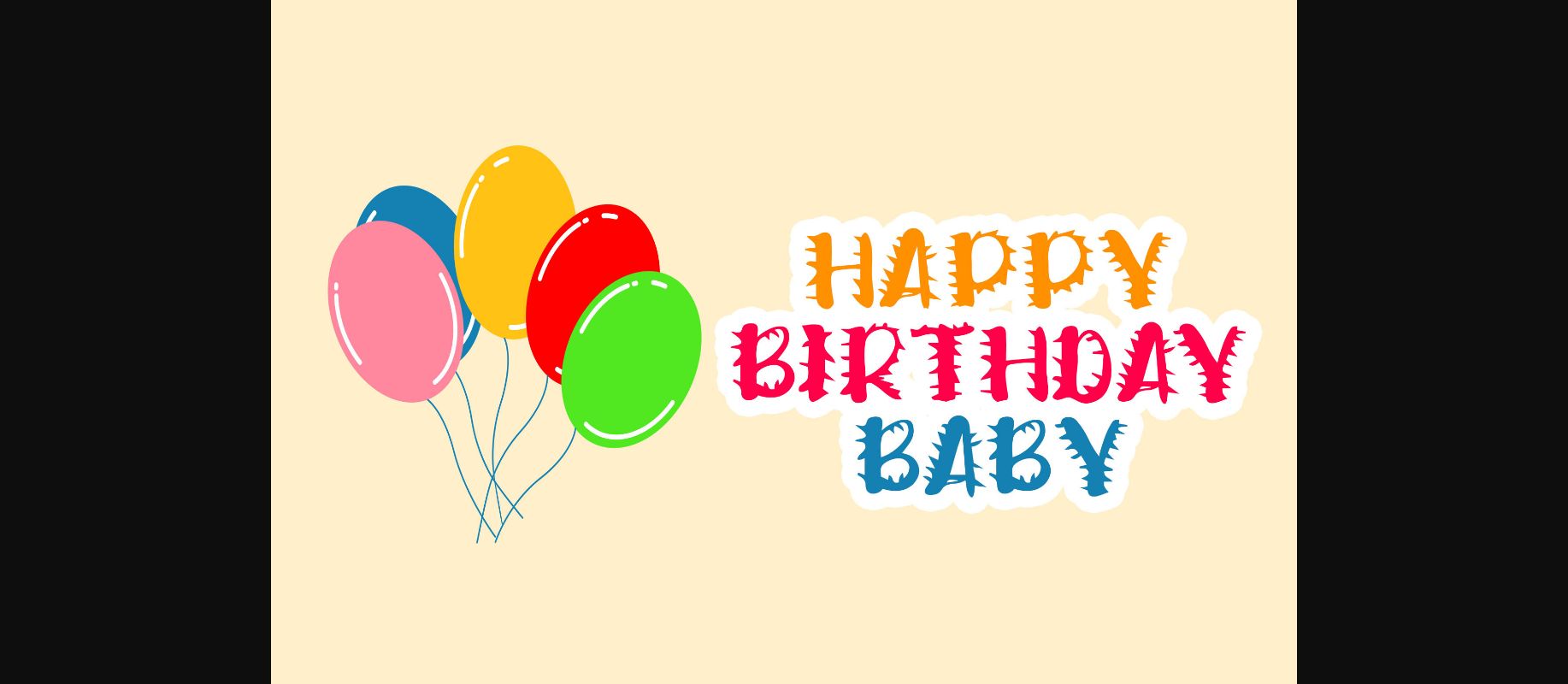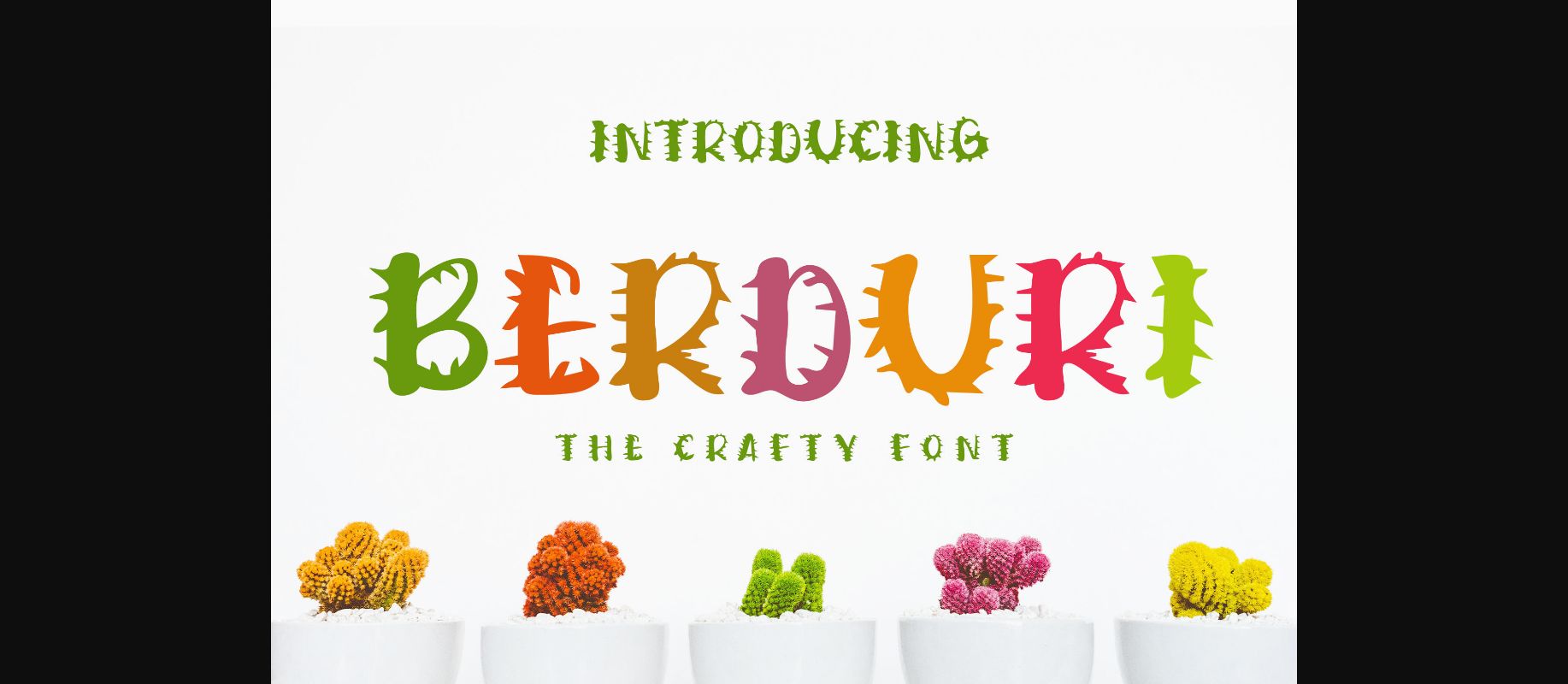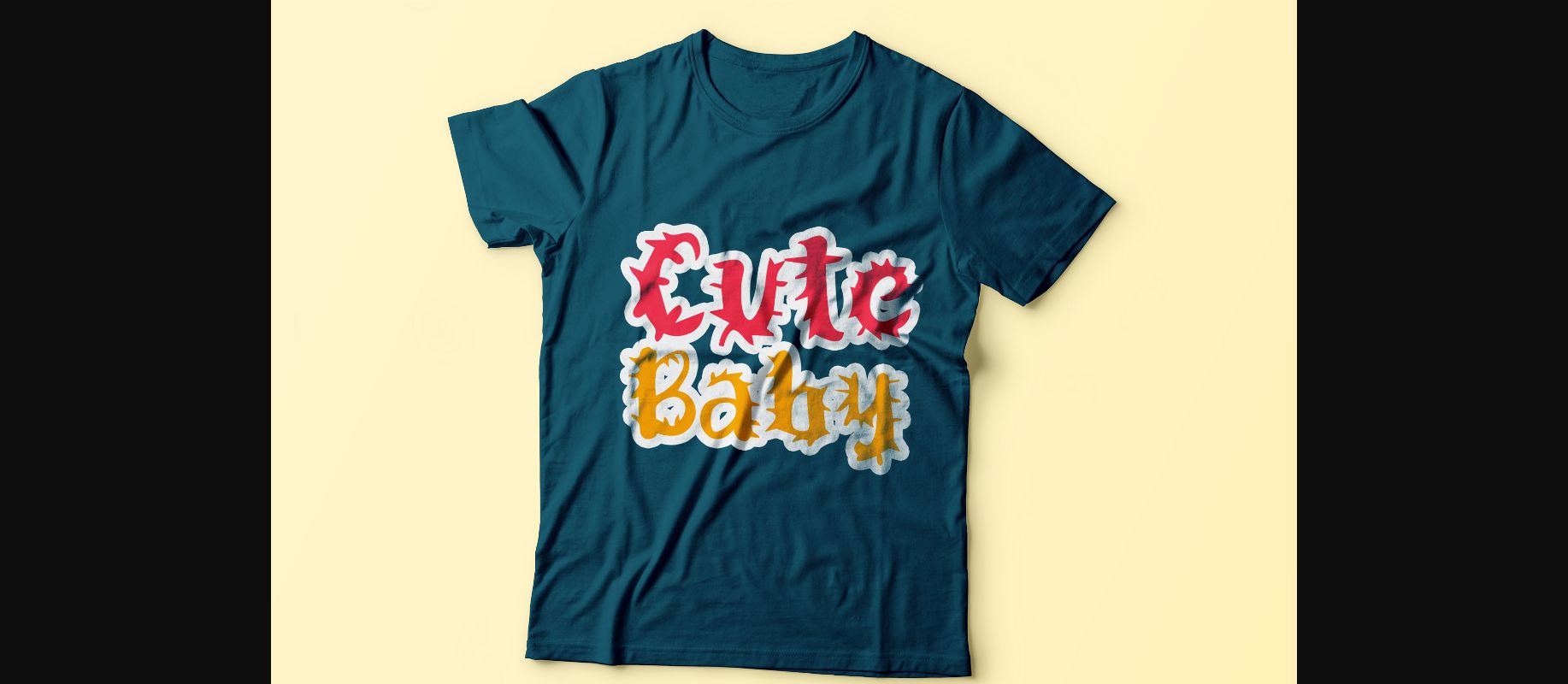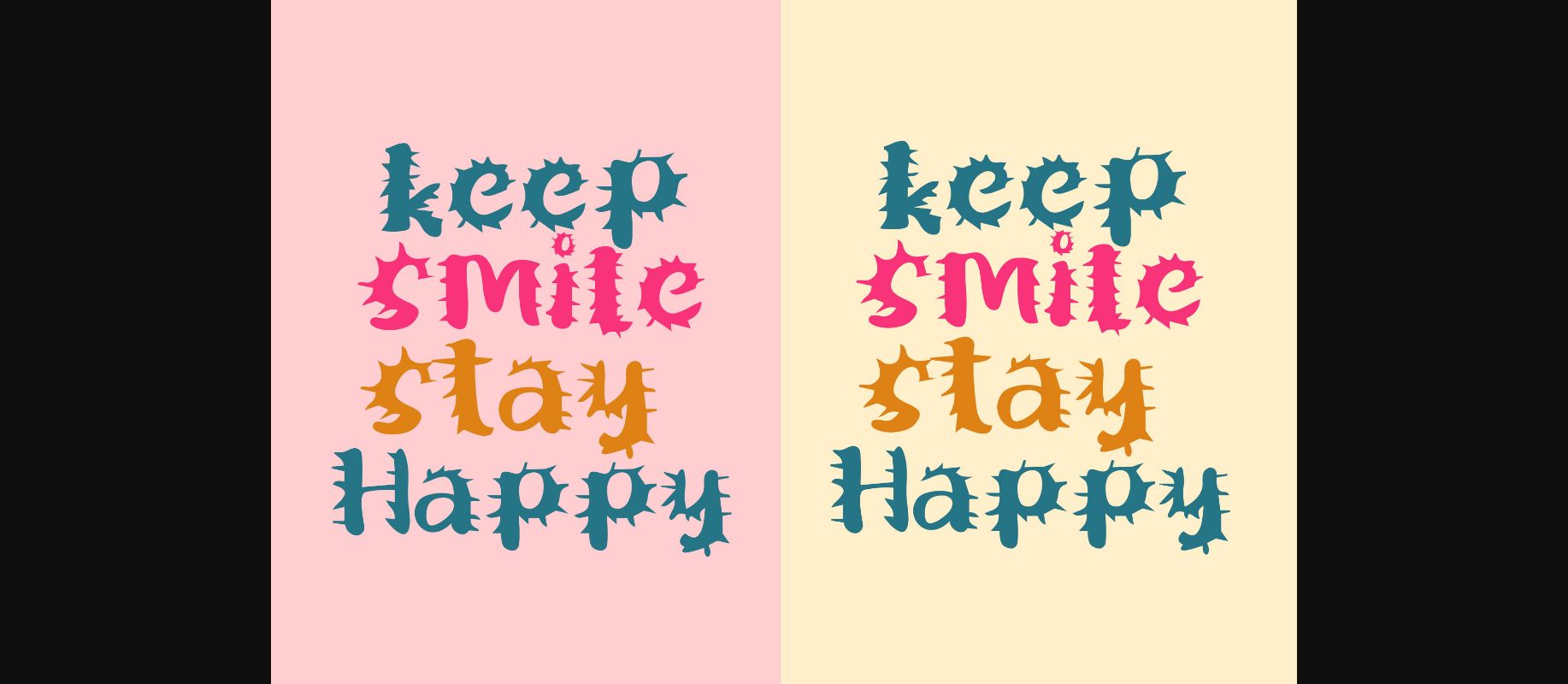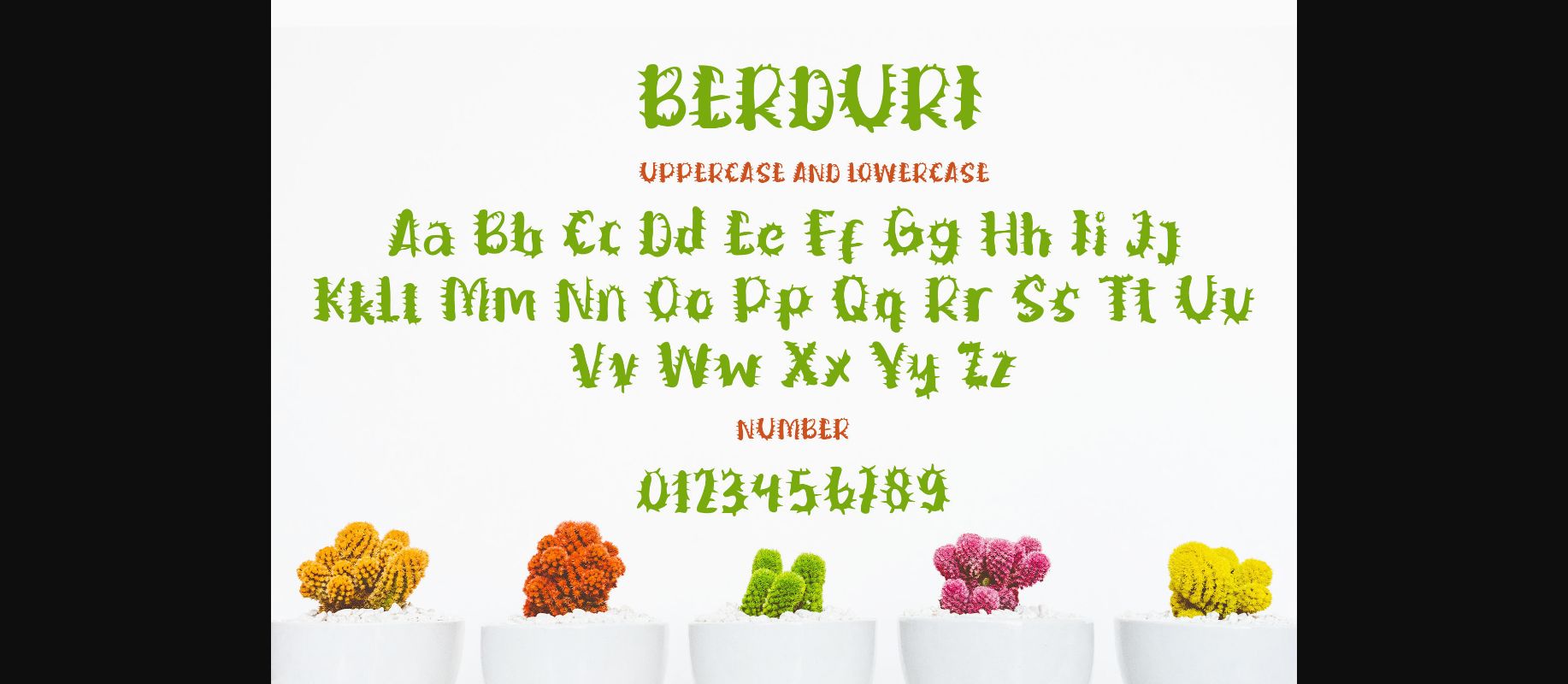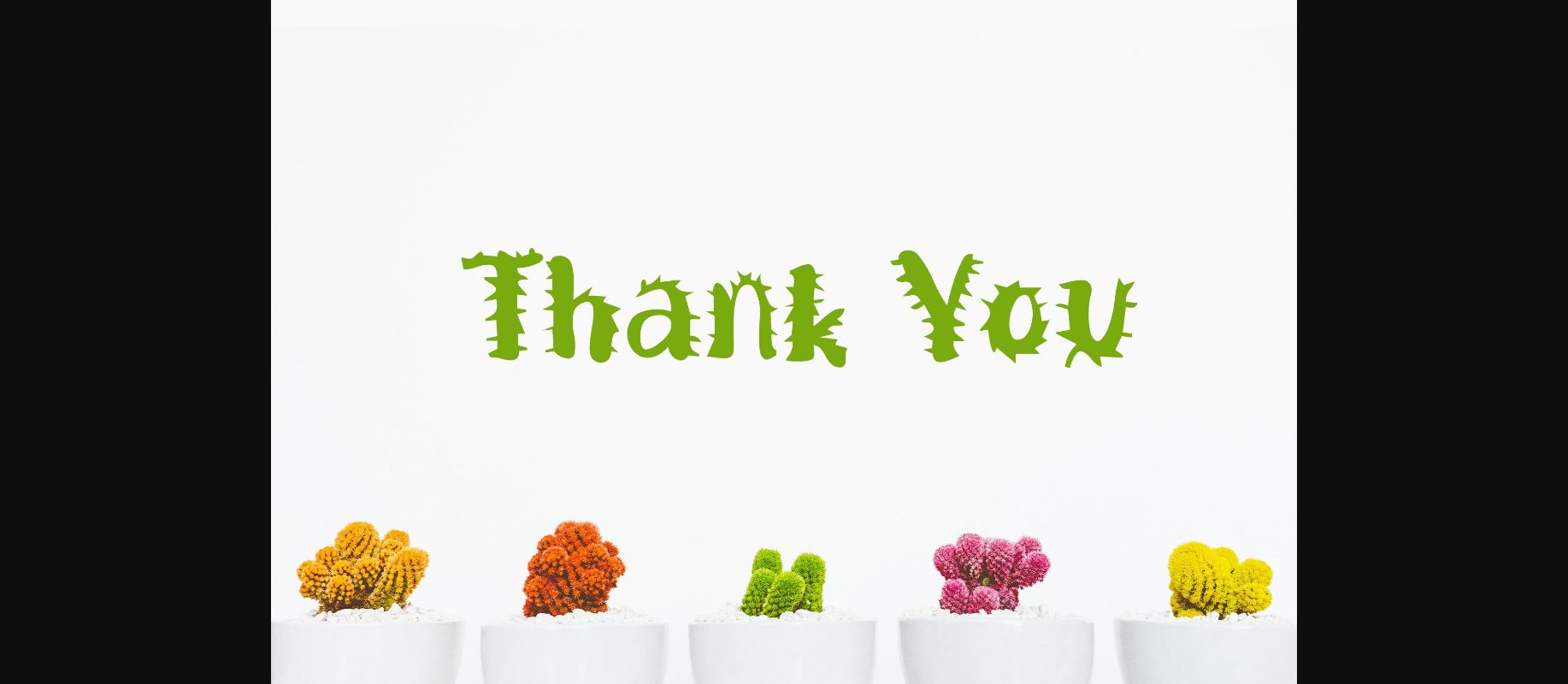
Berduri is a unique and cute decorative font with letters that have thorns stuck in each letter. This original look will appeal to a wide range of crafty ideas, from letterheads and titles, to stationery.